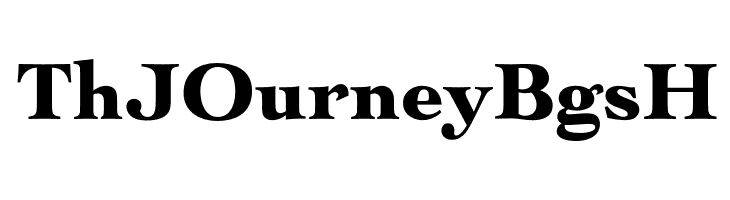
A bold serif font with strong, thick strokes and sharp serifs.
A classic serif font with outlined letters and a modern, elegant style.
A classic serif font with elegant lines and moderate contrast, ideal for formal use.
An elegant and flowing script font with sophisticated curves and loops.
A bold, italic font with tight spacing and a modern, dynamic style.
A bold, condensed font with high contrast and a modern style.
A bold, impactful typeface with strong strokes and tight spacing.
A bold, outlined font with uniform width and strong presence.
( Barry Stock )
A playful, rounded font with a hand-drawn, whimsical style.